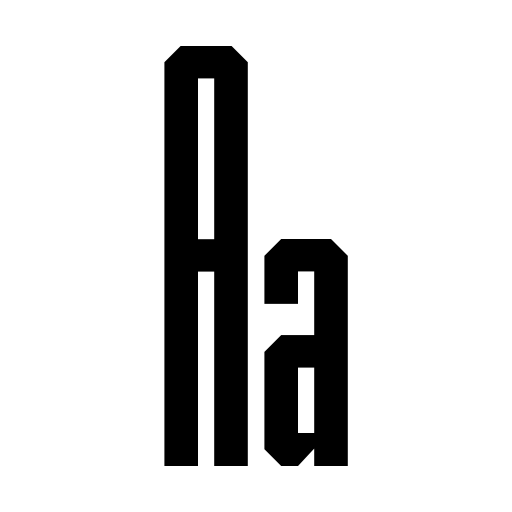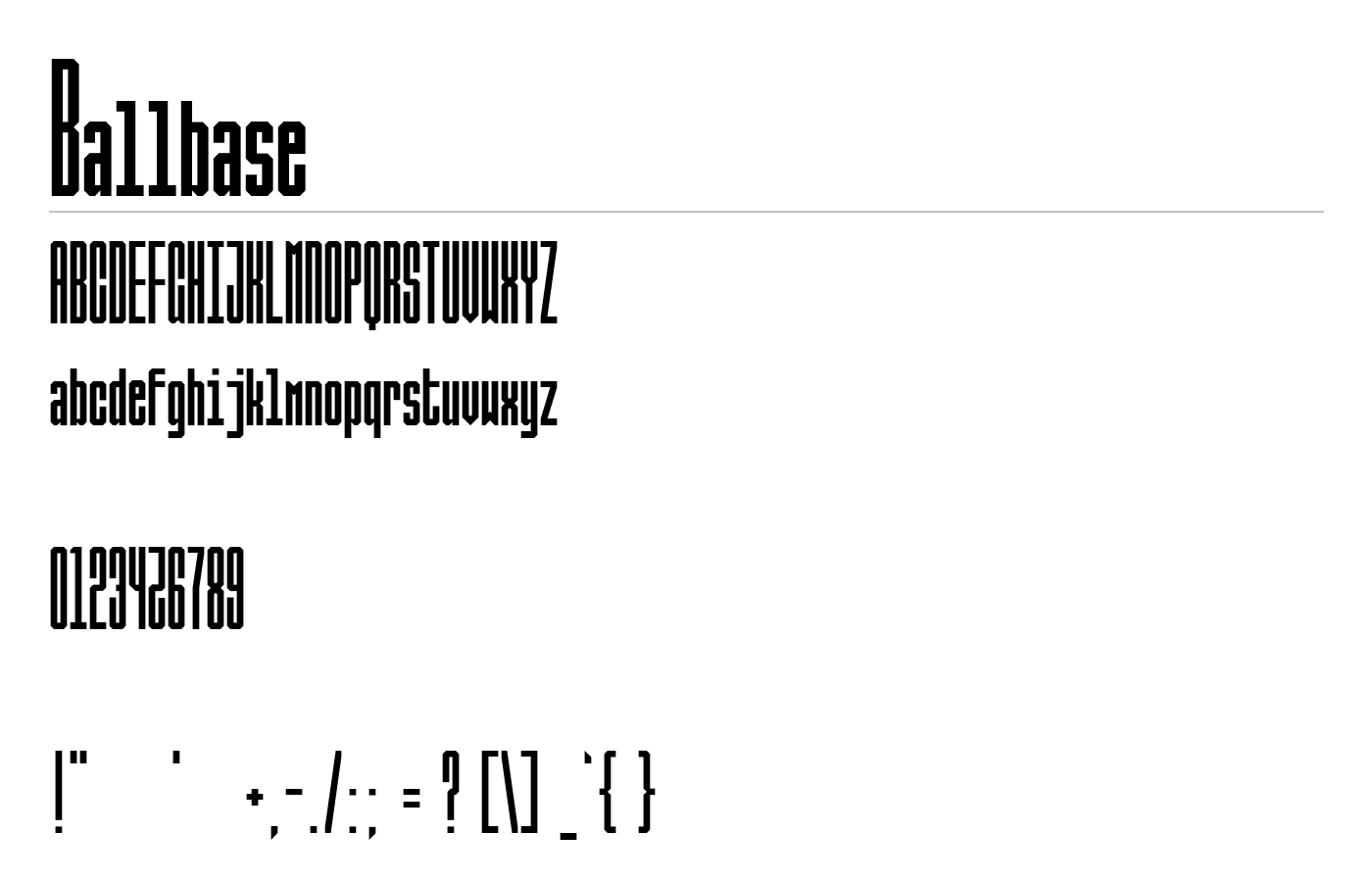
Ballbase is a tall, narrow sans serif font with a condensed and modern appearance, characterized by its uniform stroke width and minimal contrast. The font’s geometric and blocky letterforms, combined with a distinctly vertical emphasis and sharp edges, give it a bold, industrial feel that works well for striking headlines, logos, and branding that demand a strong, contemporary impact. Its unique style suits creative projects needing a blend of modernity and urban edge.
Ballbase Font